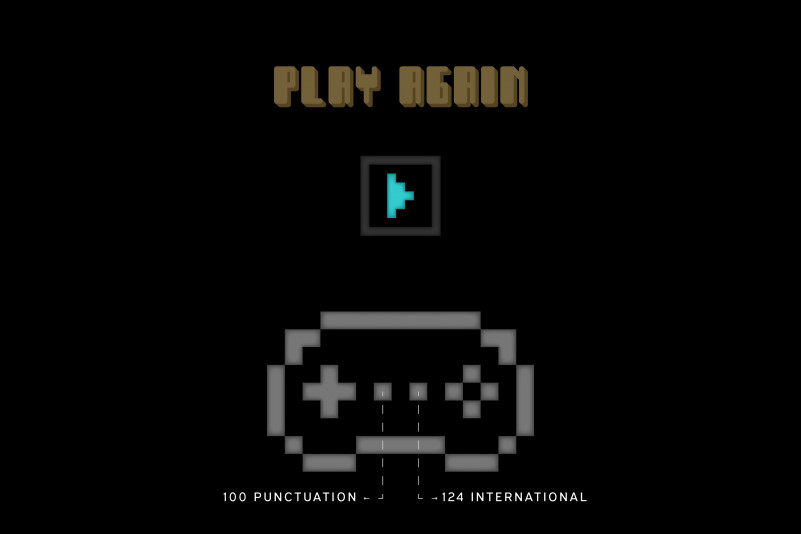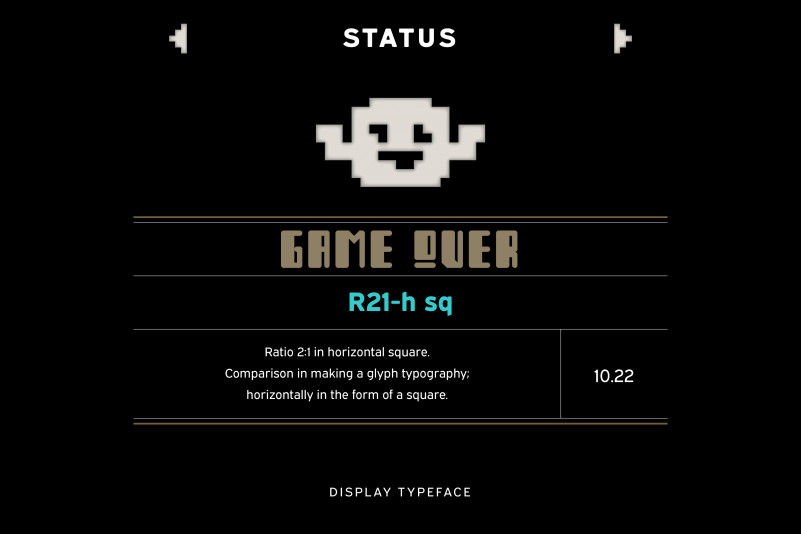
R21-h sq Font
R21-h sq Display font is an arcade style display typeface with fun theme for your project. R21-h sq font suitable for games, story book cover, logo, branding, poster and any design creation. The 8, O and Q glyph on display is for commercial version (the trial version are different).